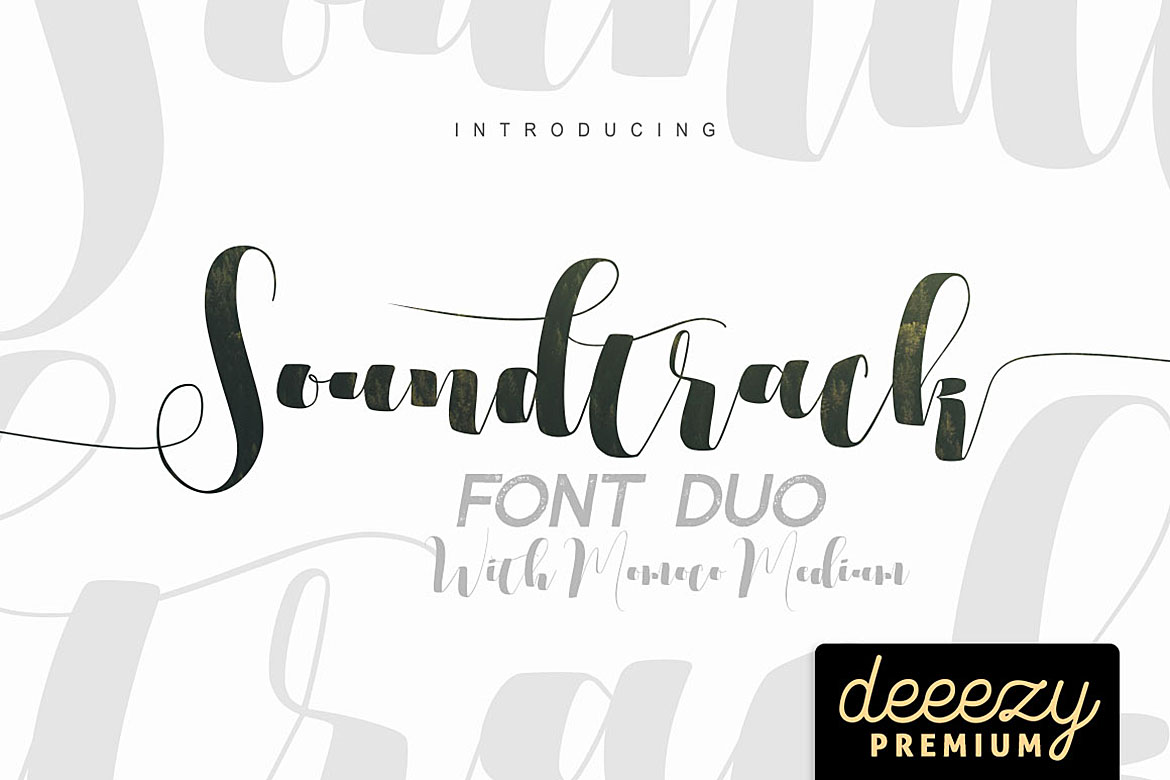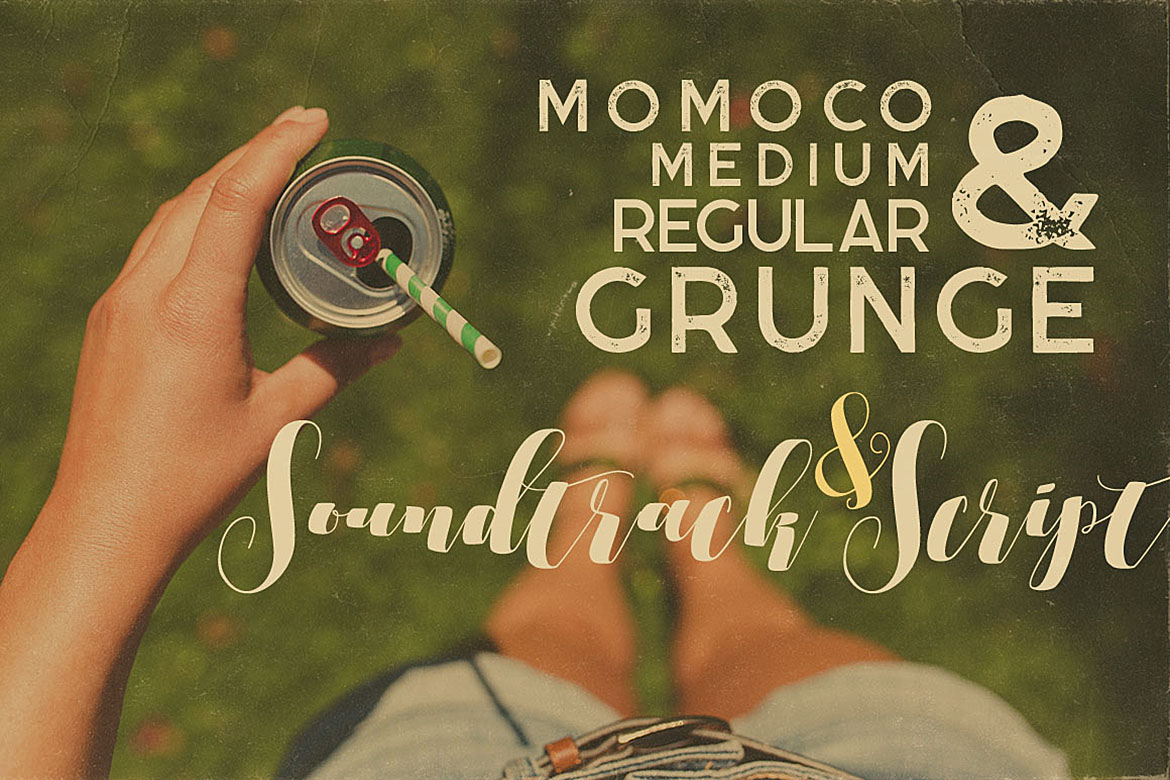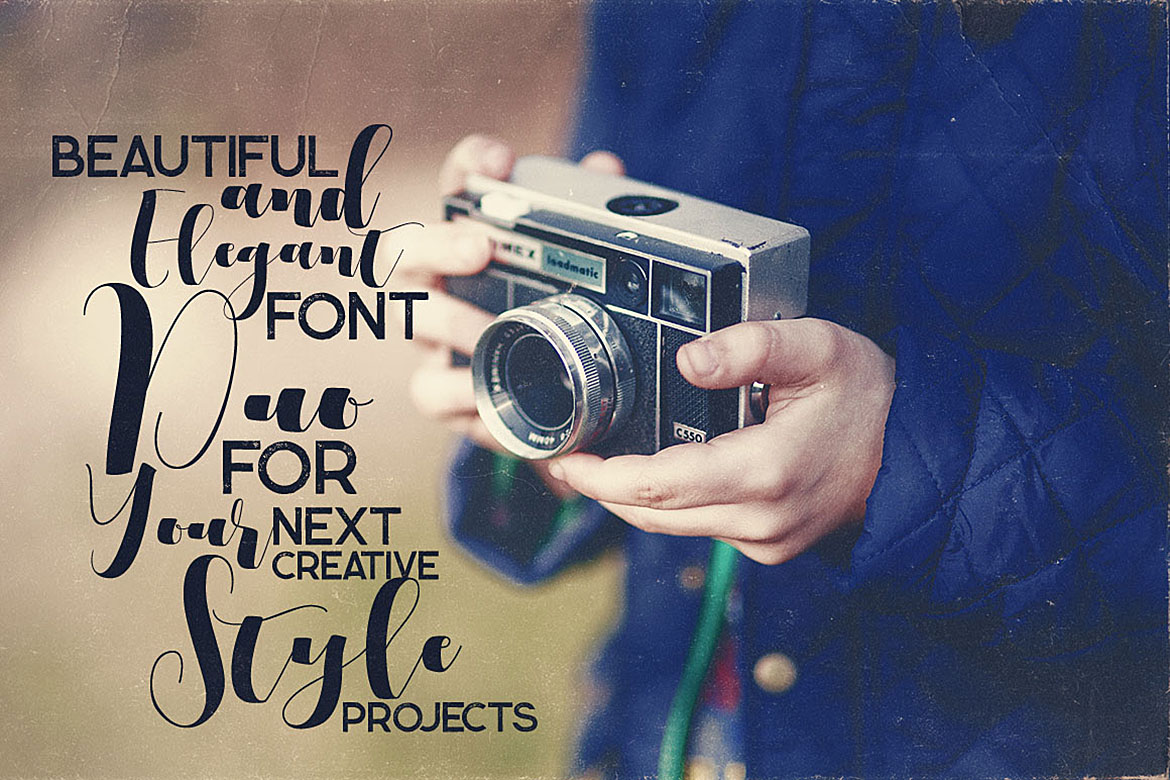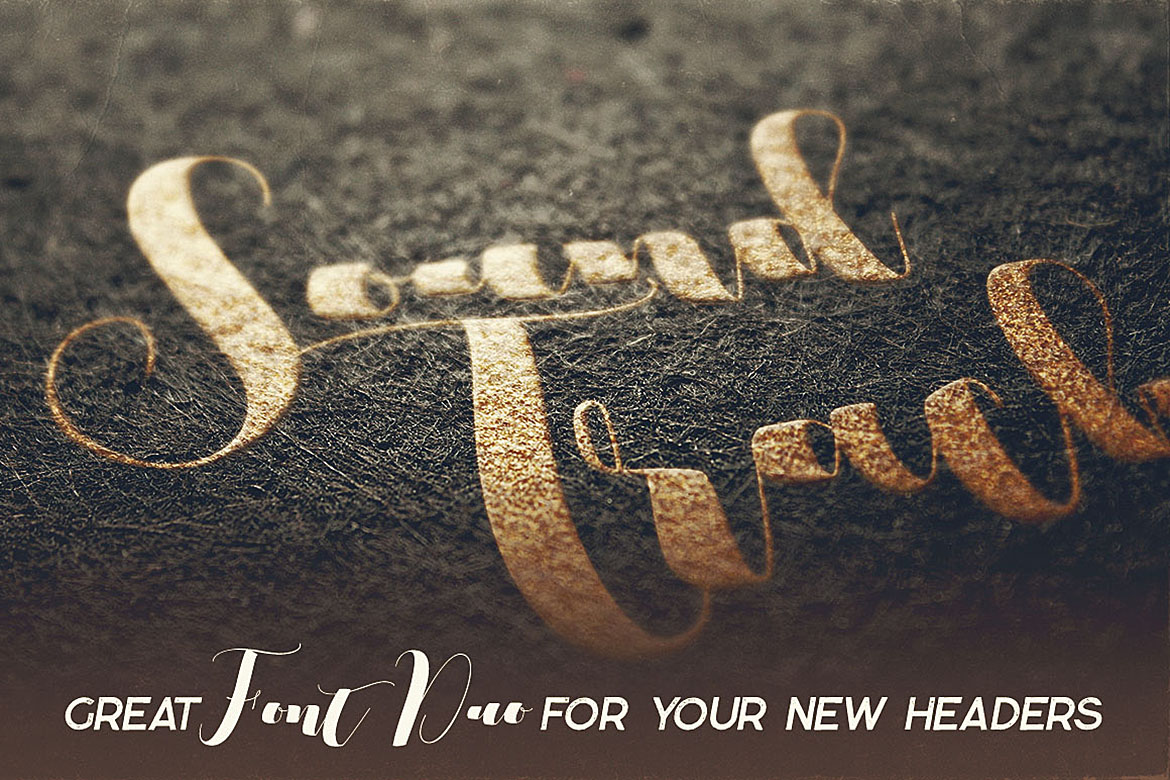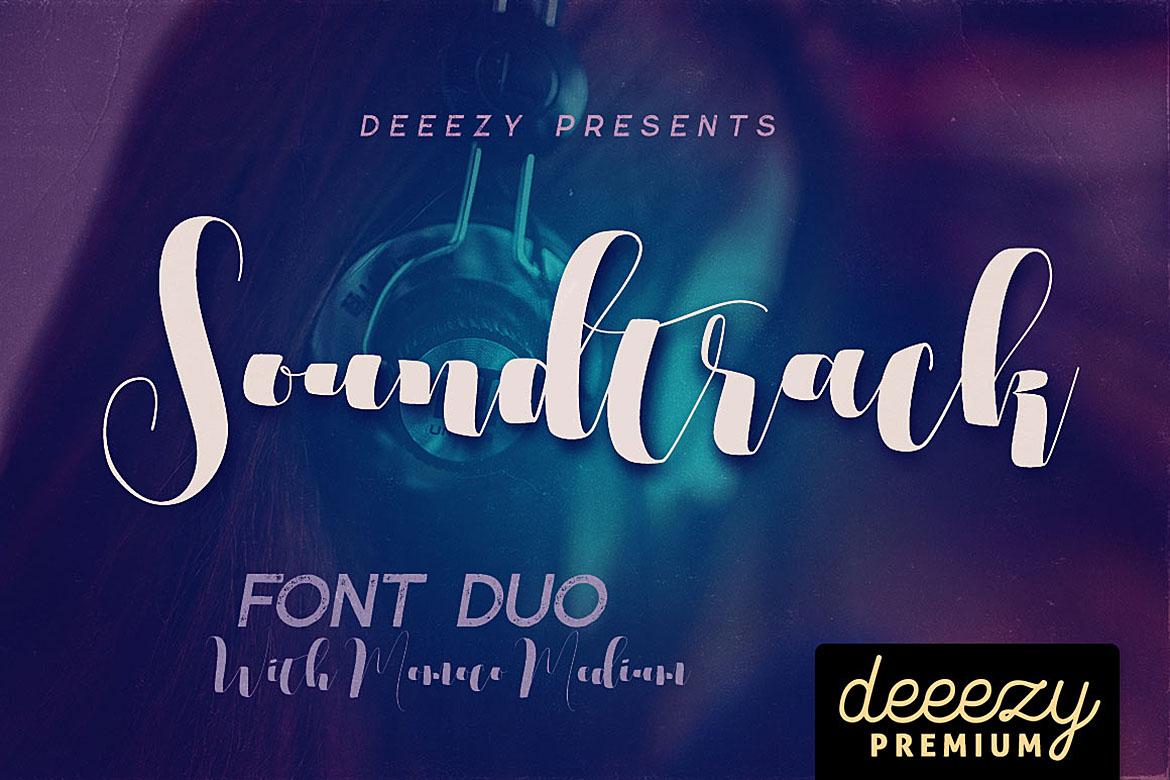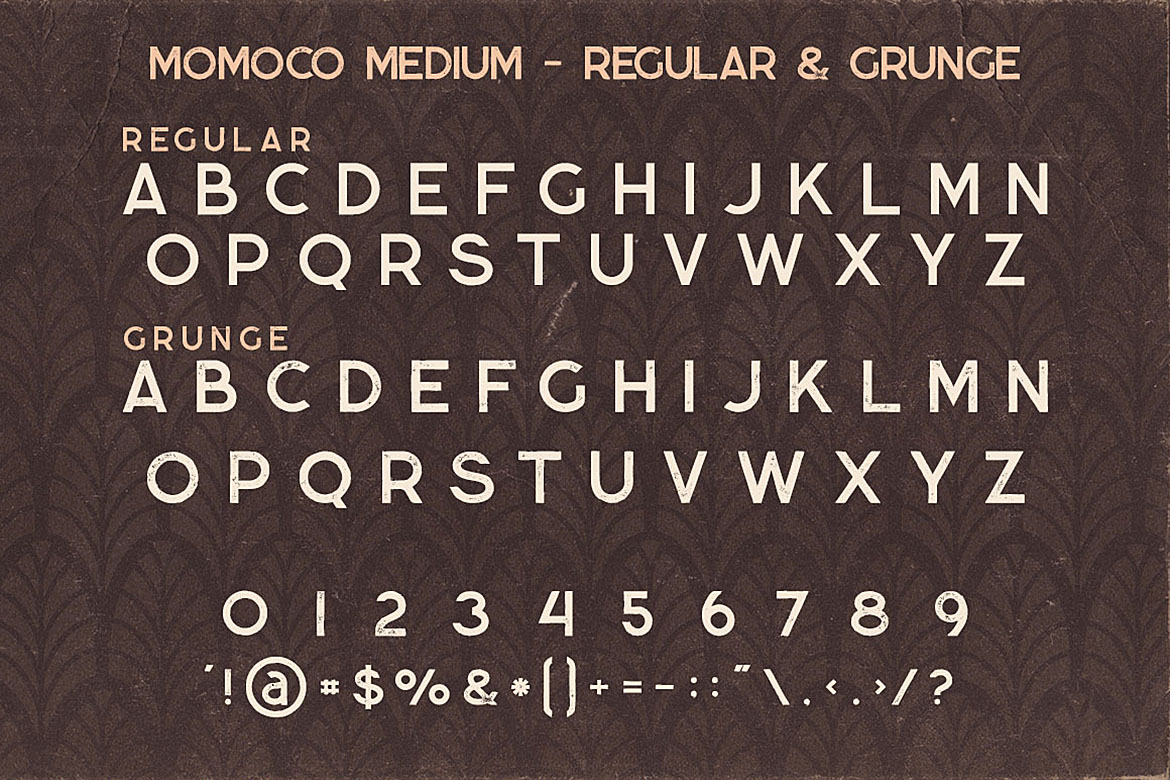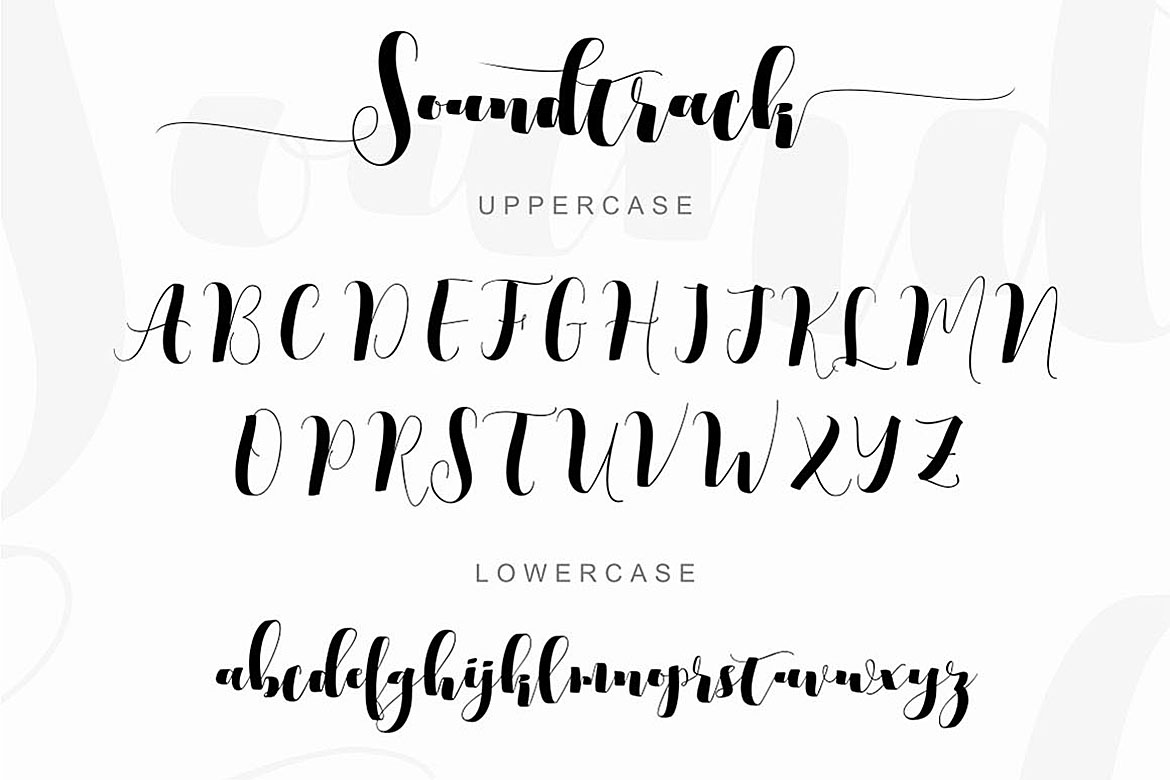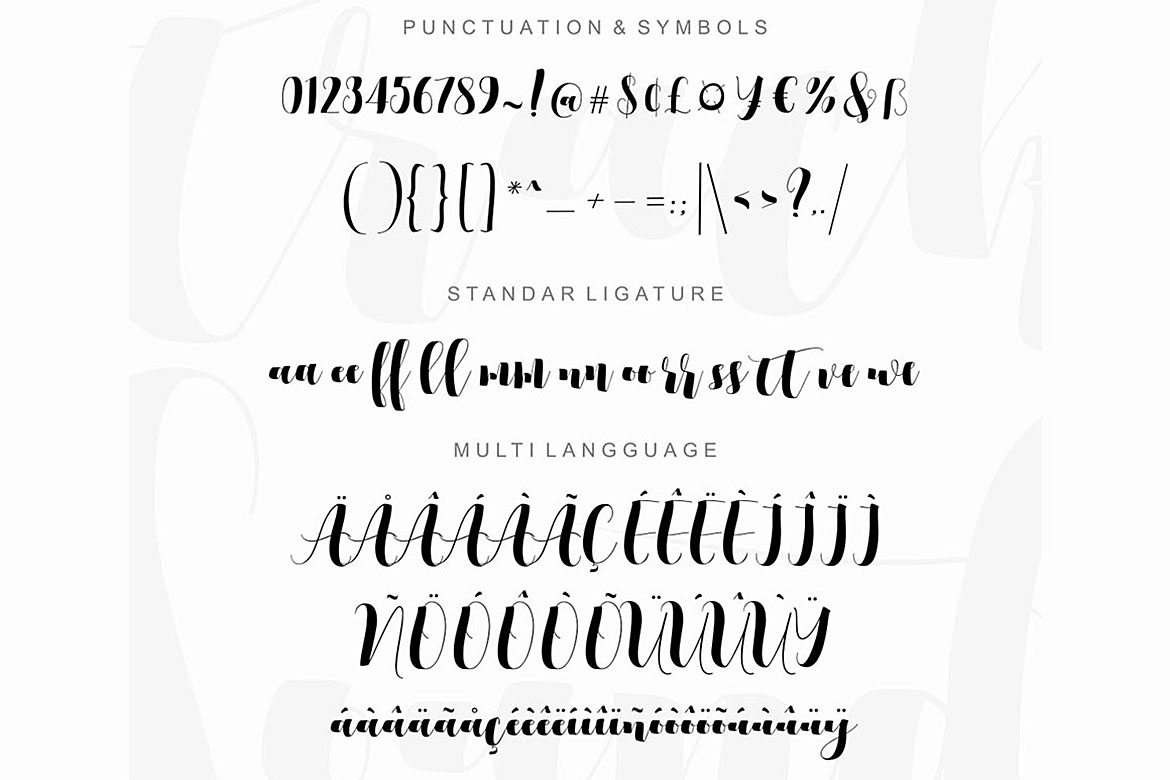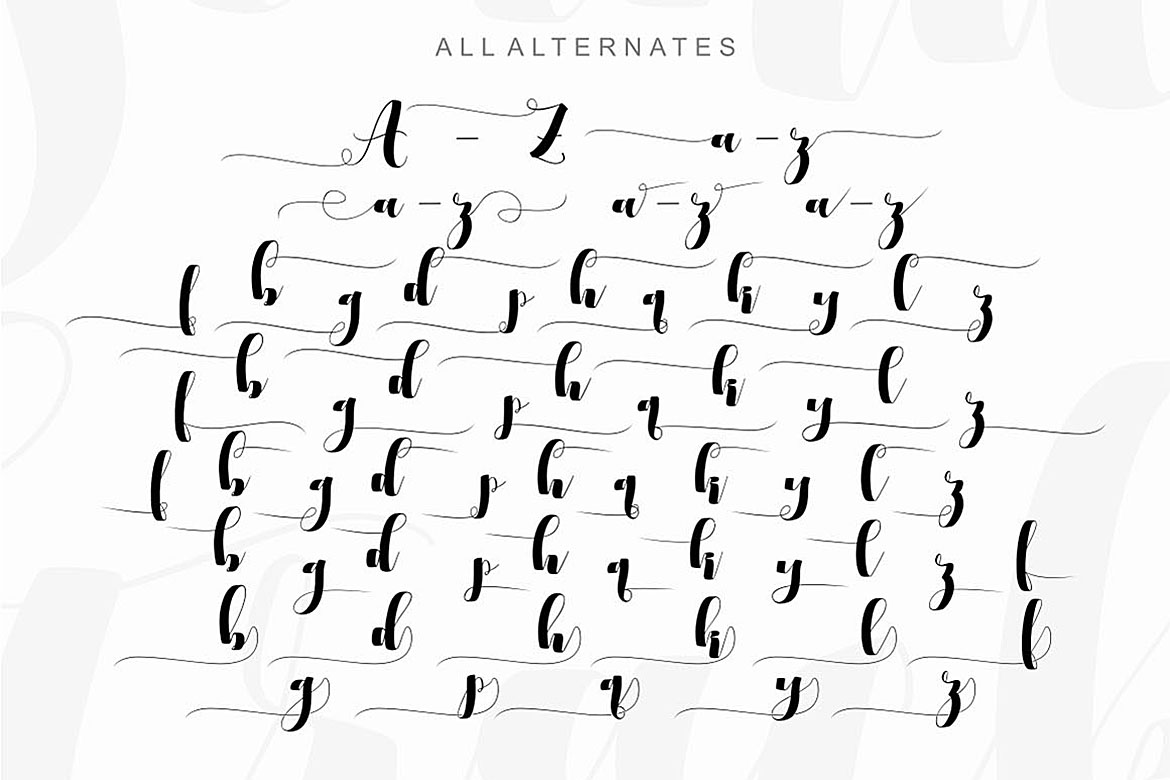
Soundtrack Font Duo Font
About Soundtrack Font Duo Font
Cool creative style font duo for your new projects.
First font is modern & unique style handwritten brush script font with multi language support and lot of stylistic alternates + swash font.
Second font is clean style display font with regular & grunge version (without multi language support).